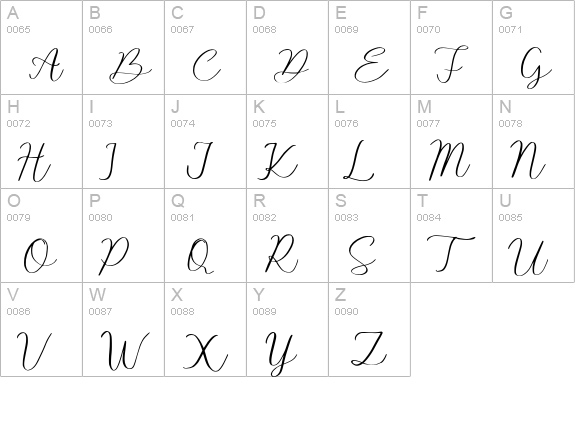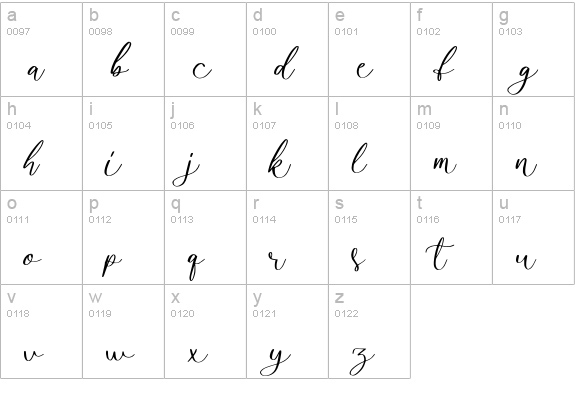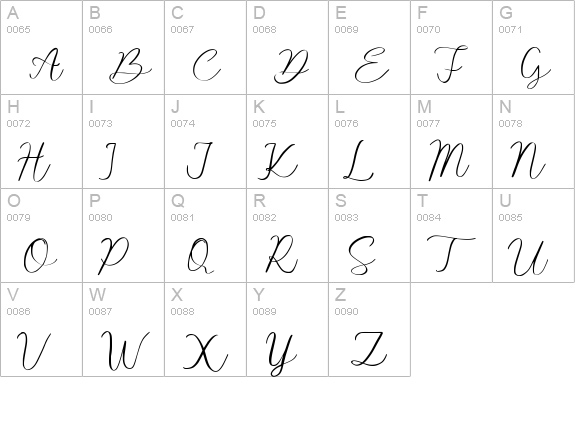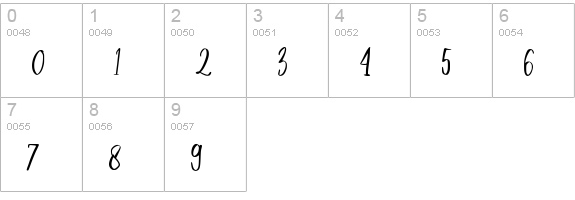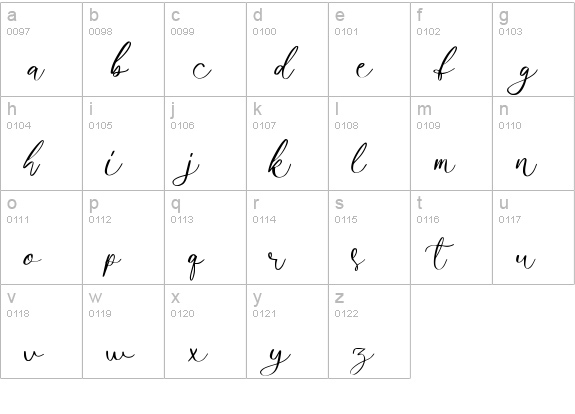
Byefour font is a modern and stylish typeface that exudes sophistication and elegance. With its sleek lines and contemporary design, Byefour is perfect for a wide range of design projects, from branding to marketing materials. The font features a unique combination of sharp edges and gentle curves, creating a harmonious balance that catches the eye.